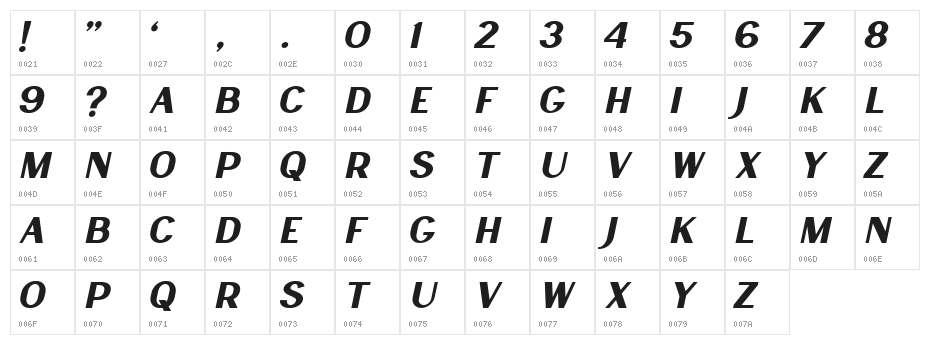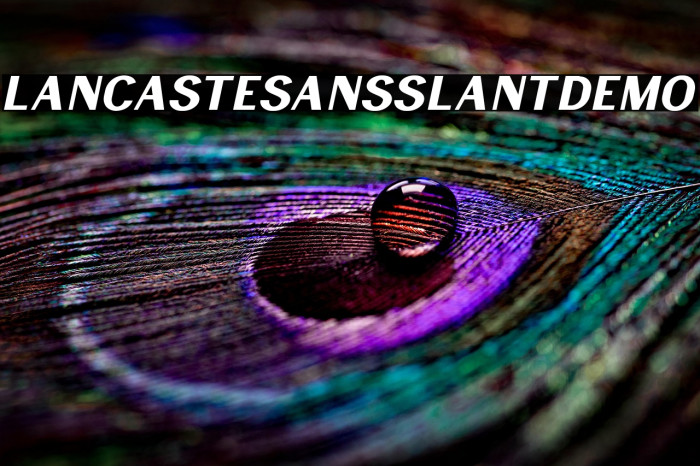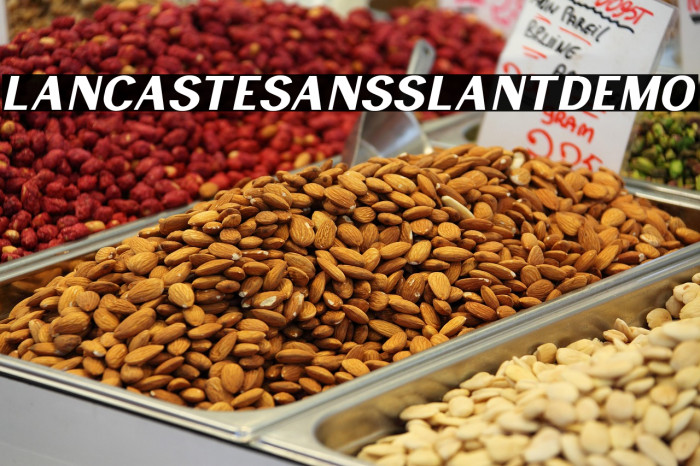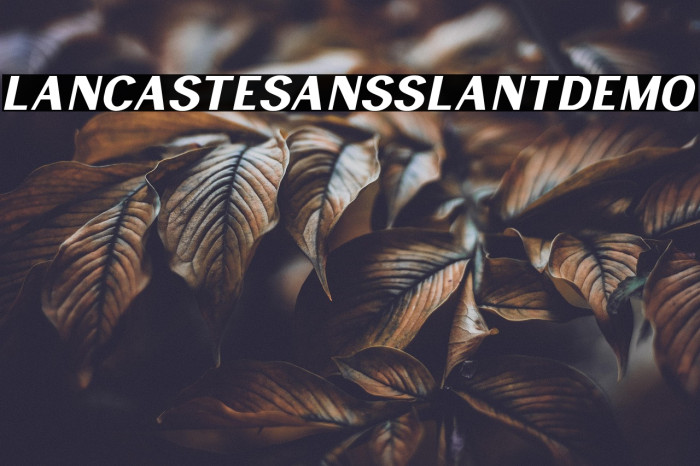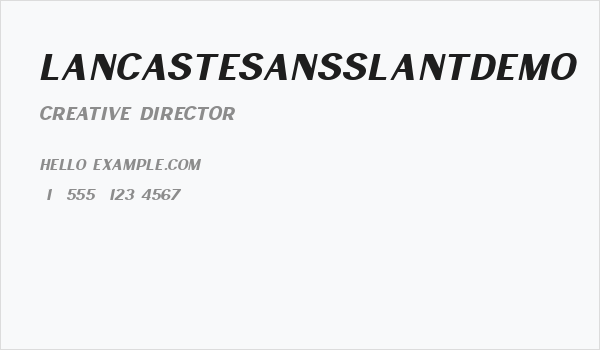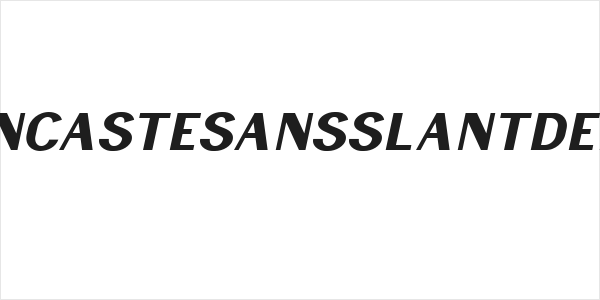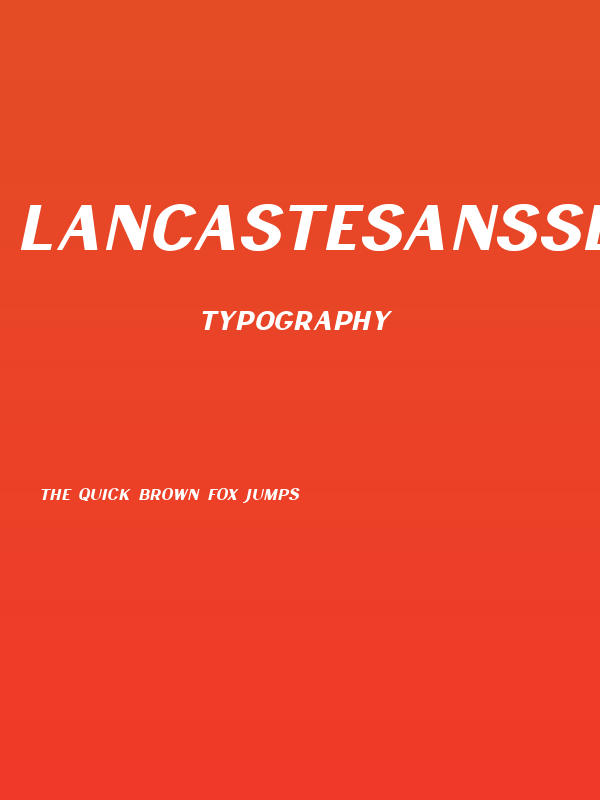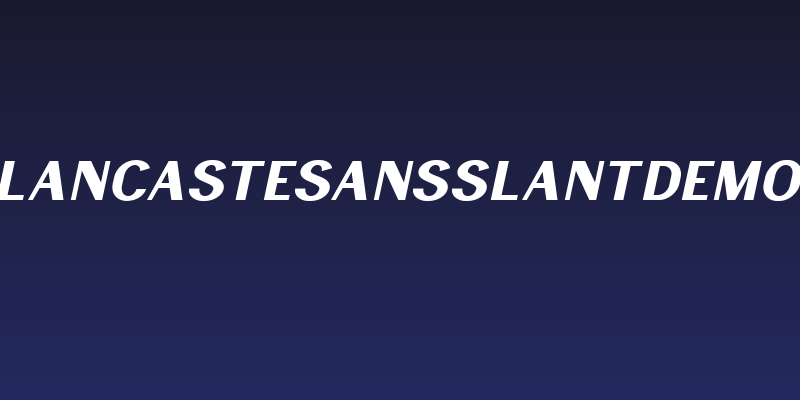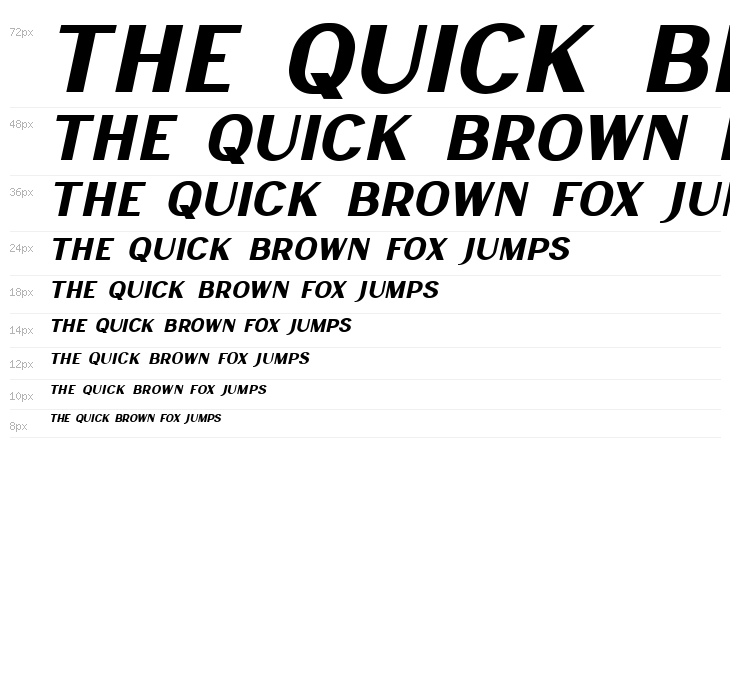
LancasteSansSlantDemo Font
LancasteSansSlantDemo Description
This font features a modern sans-serif style with a distinct slant, giving it a dynamic and forward-moving appearance. The characters are bold and well-defined, with a consistent stroke width that provides a clean and professional look. The uppercase and lowercase letters maintain a uniform height, contributing to a cohesive visual flow. The numerals are clear and easy to read, making them suitable for various applications. Special characters are included, adding versatility to the font's use. Overall, this font exudes a contemporary and sleek aesthetic, ideal for projects that require a touch of modernity and sophistication.
| Use Case | Headlines, Logos, Digital Media |
| Proposed Projects | Ideal for branding, advertising, digital media, and editorial design projects. |